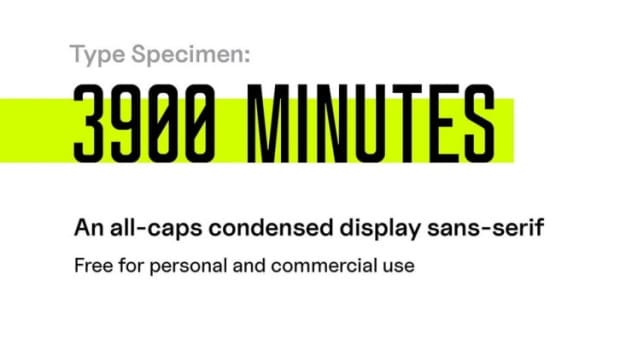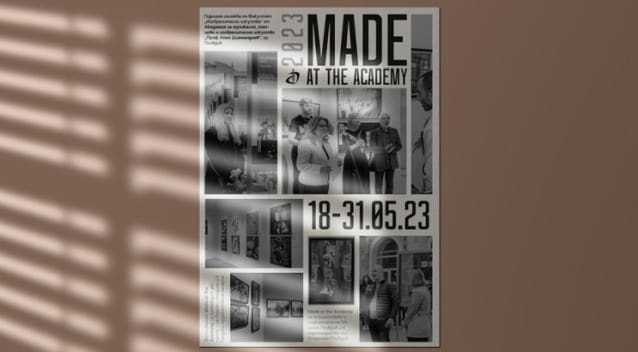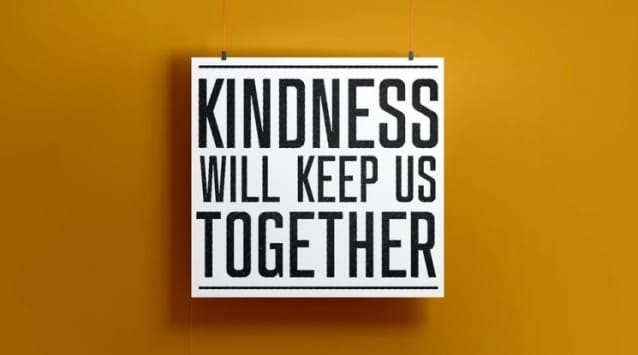
3900 MINUTES TYPEFACE
3900 Minutes Typeface, is a display sans serif font with a clean modern feel inspired by typefaces like Bebas Neue and Alternate Gothic. It is a condensed typeface that able to fill a lot of space while still being legible enough in a variety of sizes. In combination with flat background colors it looks clean and speaks for itself and also sends a clear message.
3900Minutes is a visual powerhouse, offering a balance of boldness and sophistication with its crisp, unadorned letterforms. The clean lines and generous spacing contribute to an overall sense of clarity and impact, making 3900 Minutes font an ideal choice for headlines, branding, and any design that demands a strong visual presence.